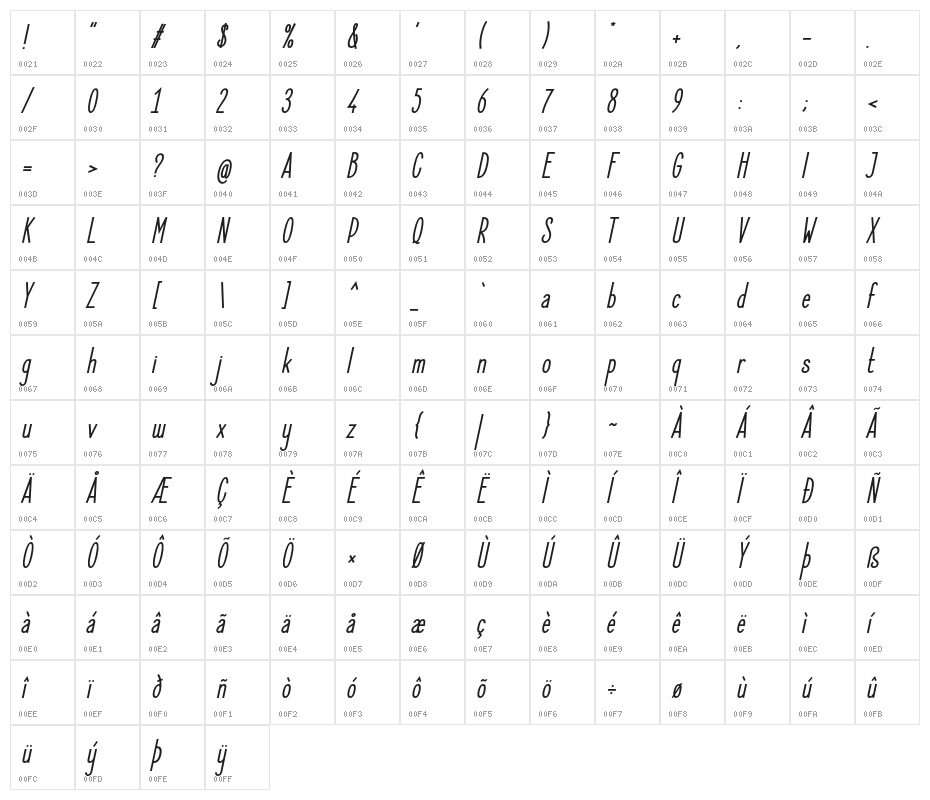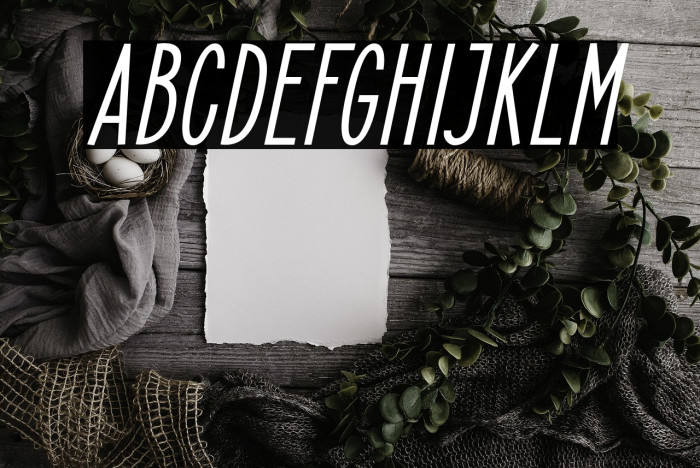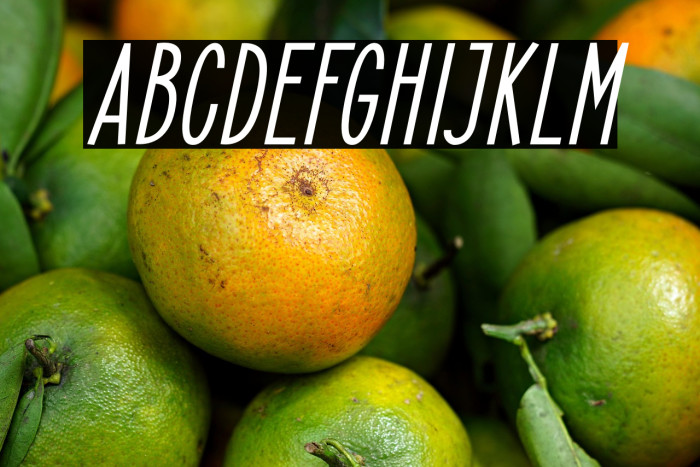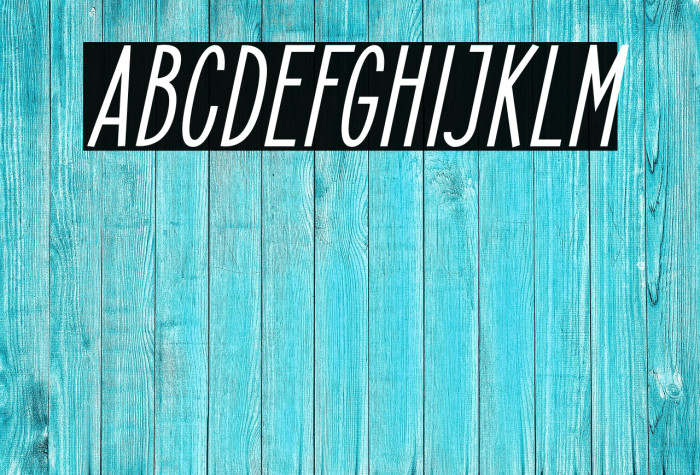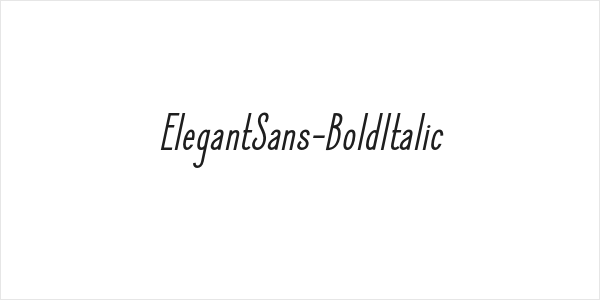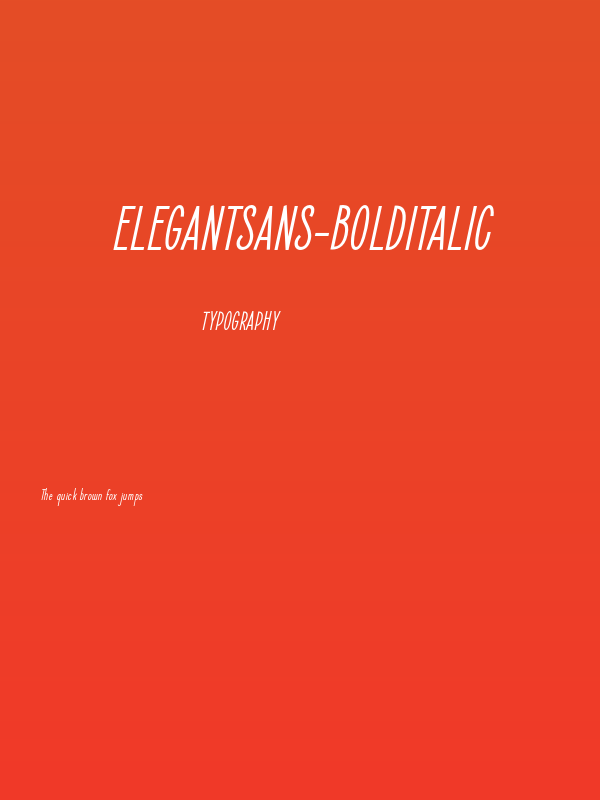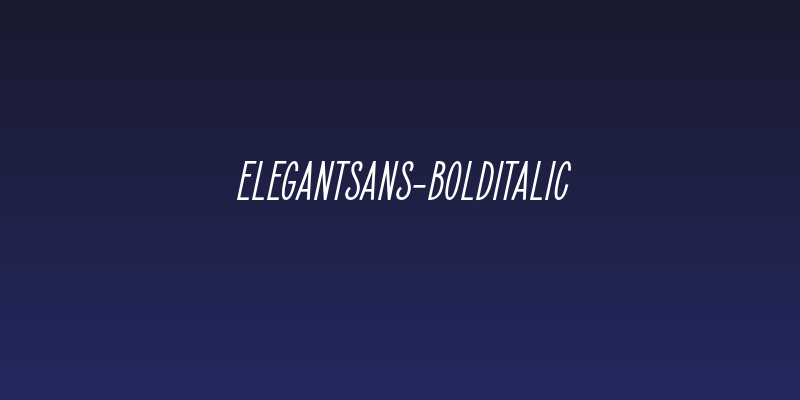
ElegantSans-BoldItalic Font
ElegantSans-BoldItalic Description
This font features a sleek and modern design with a bold and italicized style. The characters are elongated with a slight slant, giving them a dynamic and energetic appearance. The uppercase letters are tall and narrow, while the lowercase letters maintain a consistent flow, enhancing readability. The numbers are well-proportioned, and the special characters are distinct and stylish. This font's overall aesthetic is clean and contemporary, making it suitable for a variety of design applications.
| Proposed Projects | Ideal for branding, advertising, and editorial design where a modern and energetic look is desired. |